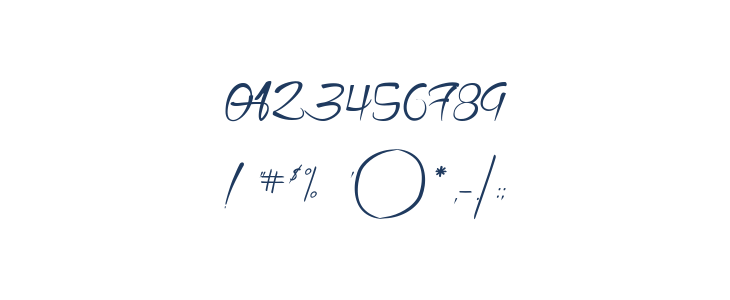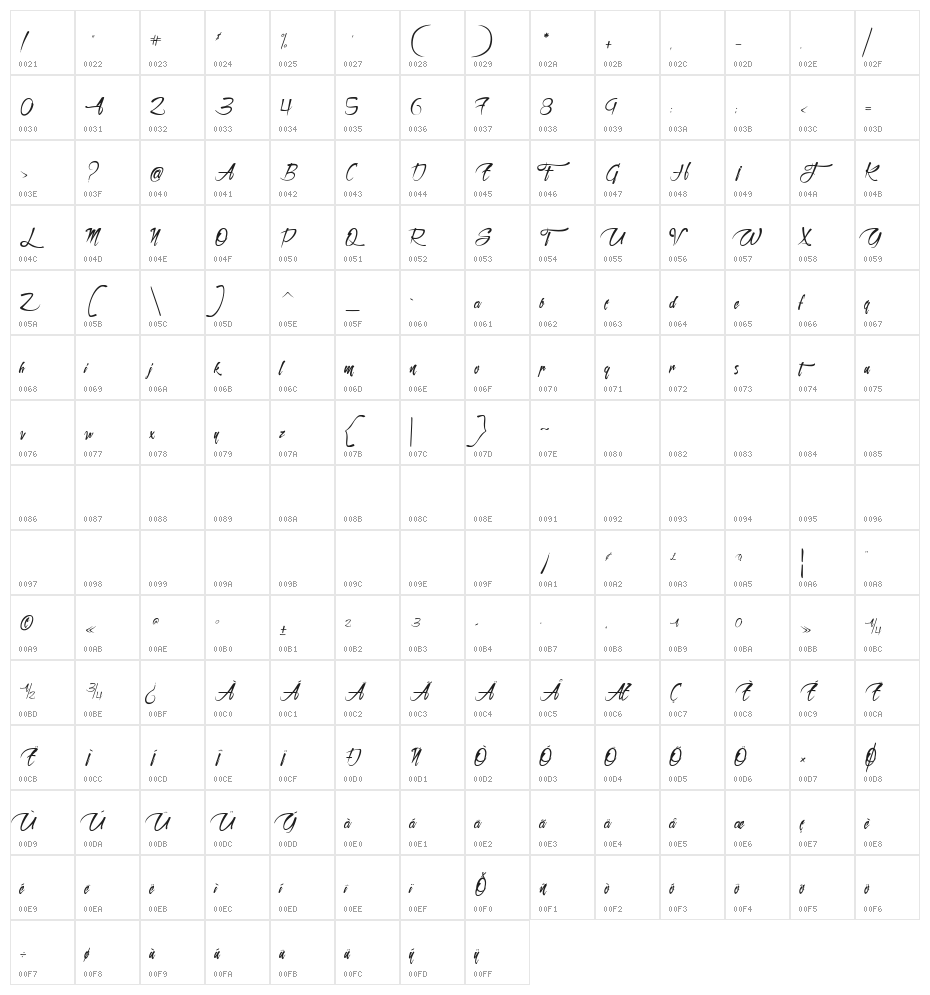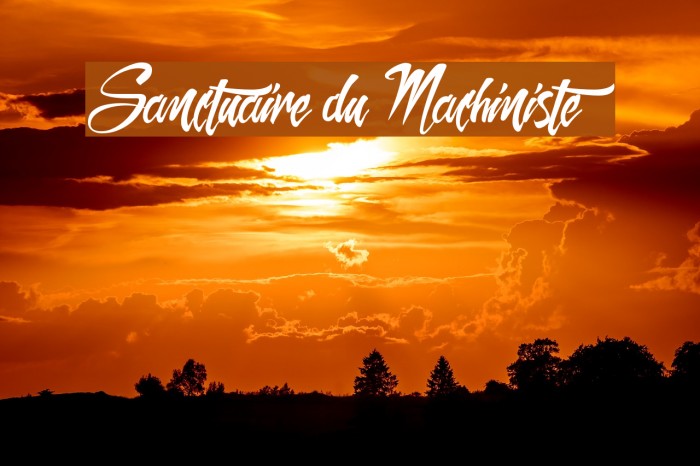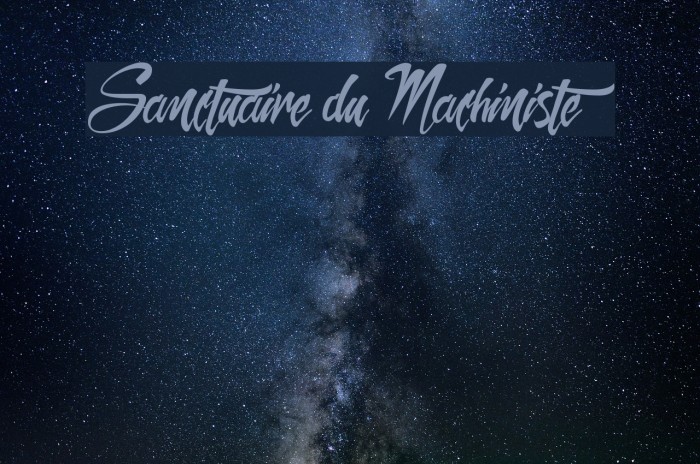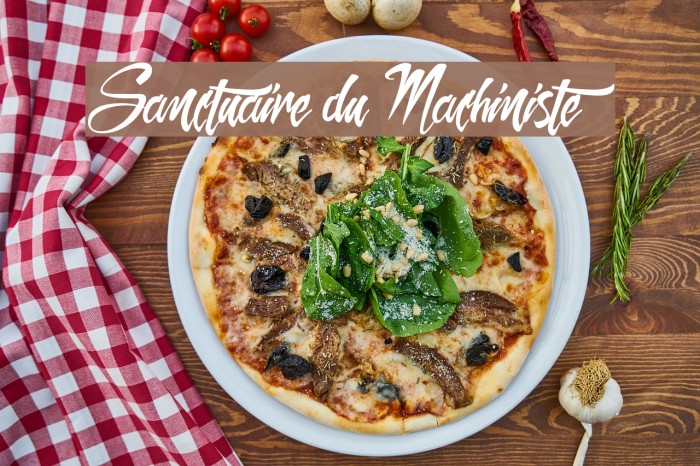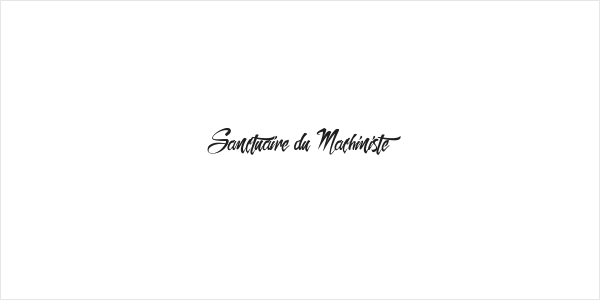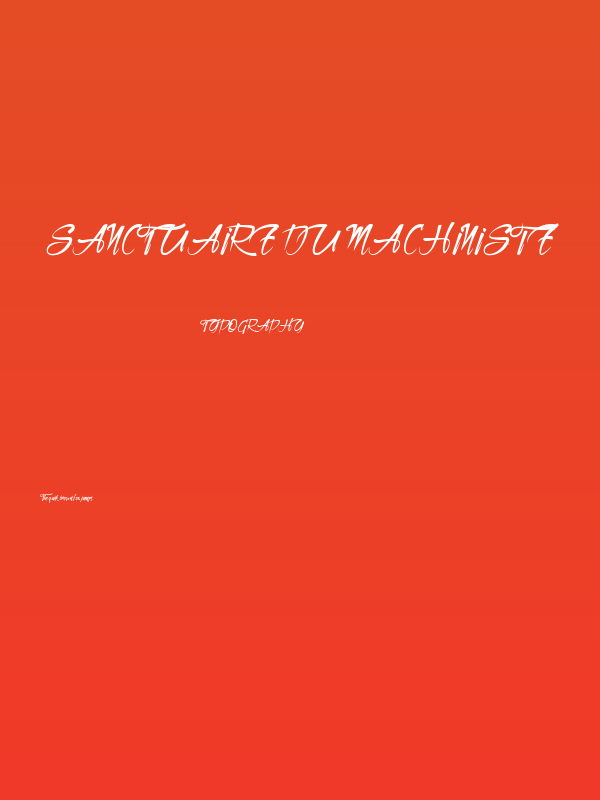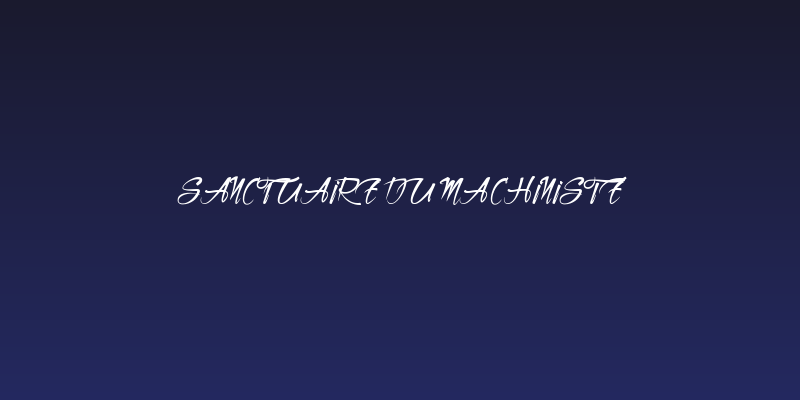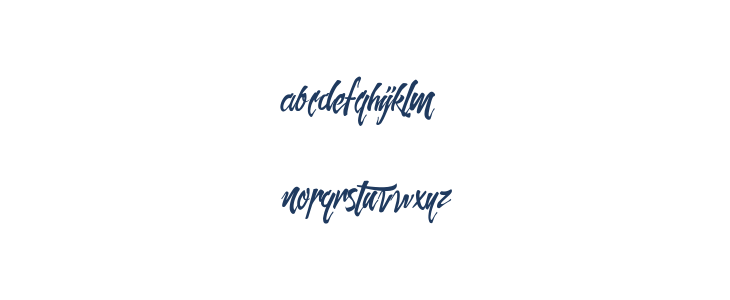
Sanctuaire du Machiniste Font
Sanctuaire du Machiniste Description
This font features an elegant and flowing script style, characterized by its sweeping curves and intricate letterforms. The uppercase letters exhibit a dynamic and expressive quality, with varying stroke widths that add a sense of movement and grace. The lowercase letters maintain a cohesive style, complementing the uppercase with their own fluid and connected forms. The numerals are distinct yet harmonious with the overall script aesthetic, offering a balanced and artistic appearance. Special characters are crafted with the same attention to detail, ensuring consistency across the entire typeface. This font exudes a sense of sophistication and creativity, making it ideal for projects that require a touch of elegance and flair.
| Overall Style | Elegant, Artistic |
| Proposed Projects | Ideal for wedding invitations, elegant branding, artistic posters, and luxury packaging. |